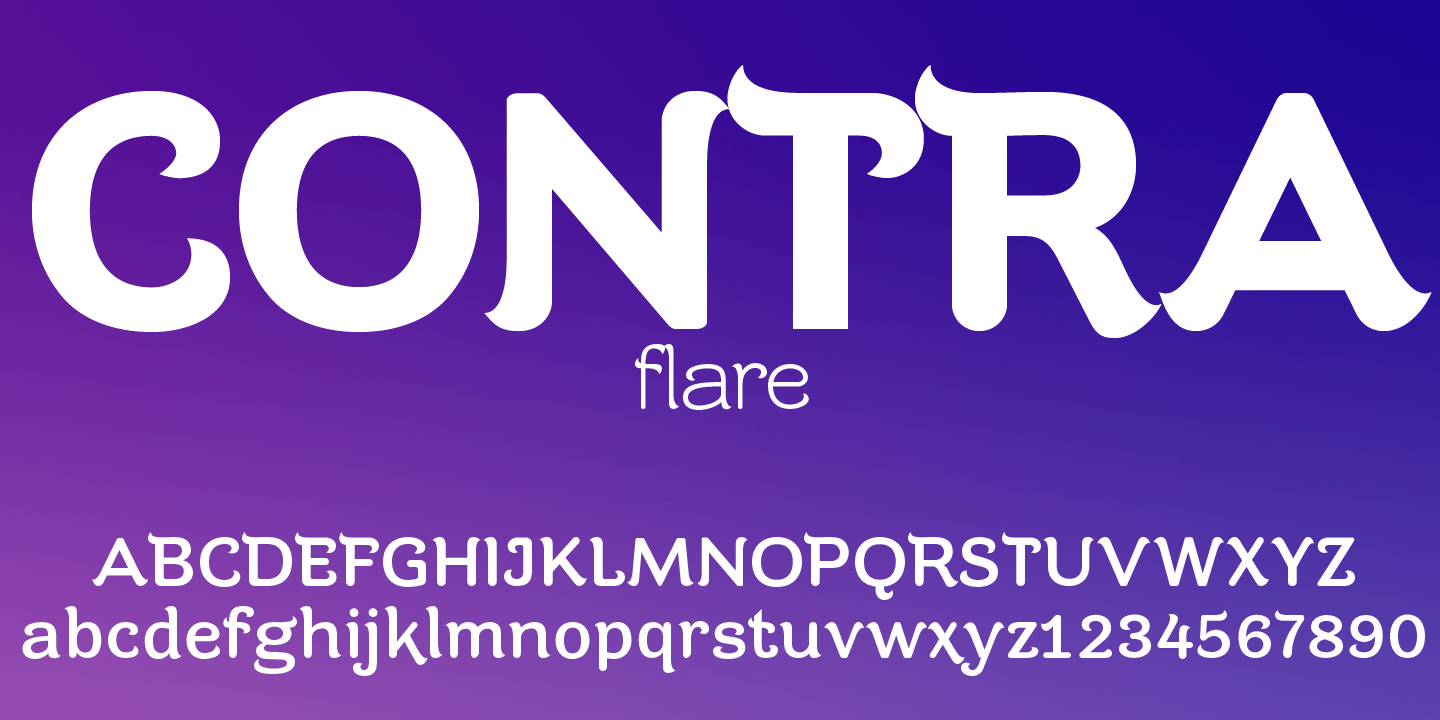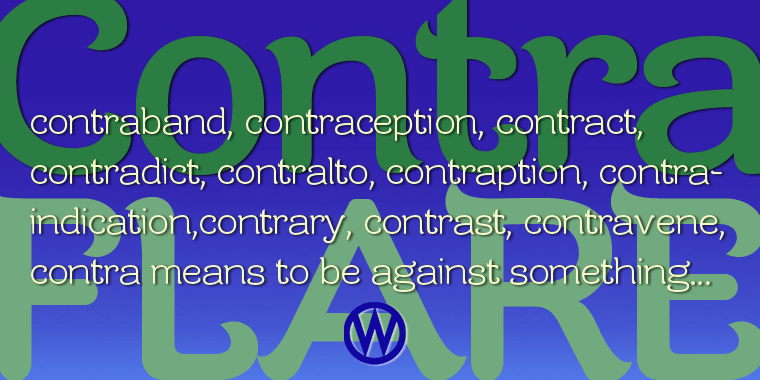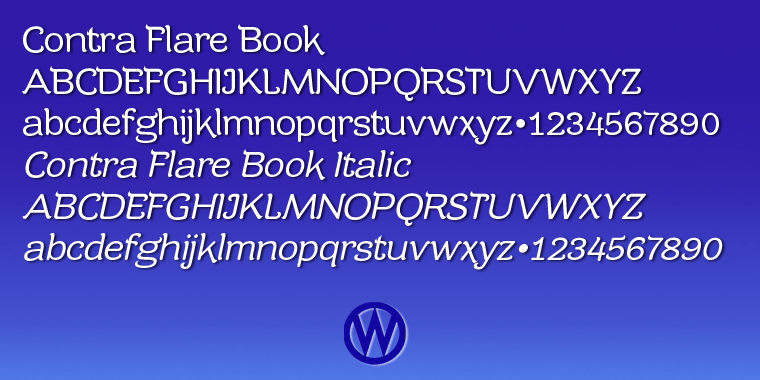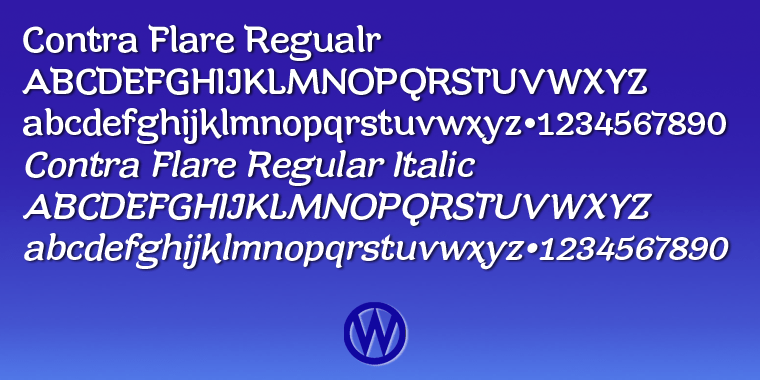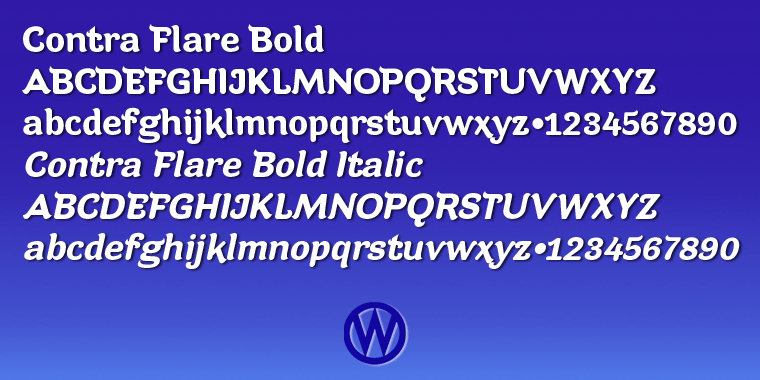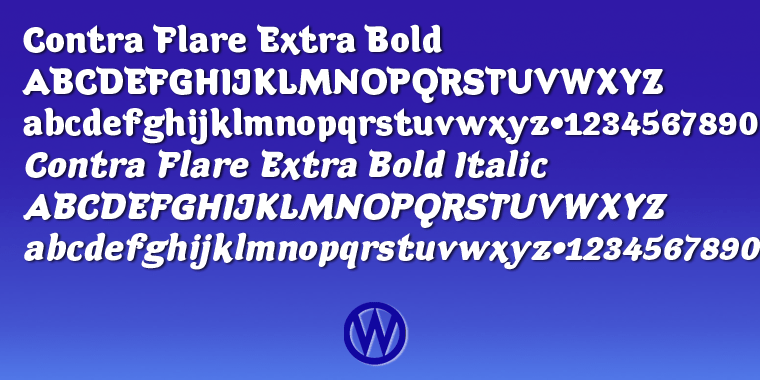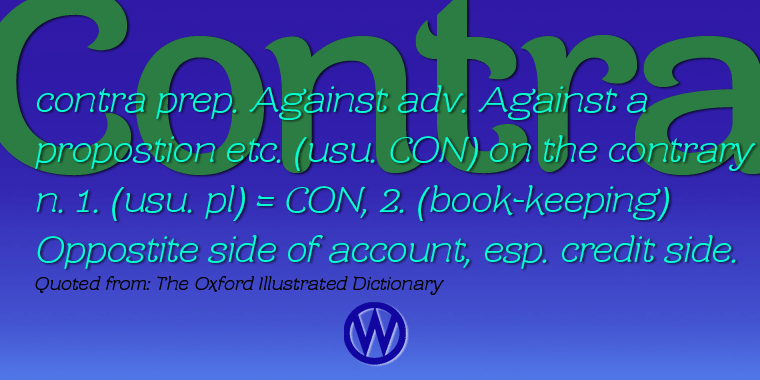
Contra Flare
Font Family by Wiescher Design
Contra Flare is the organic design of my Contra family of fonts. It has beautiful curved endings ? not serifs ? that make it look like it was made out of flowers leafs. But still the font has an elegant look to it. Enjoy!